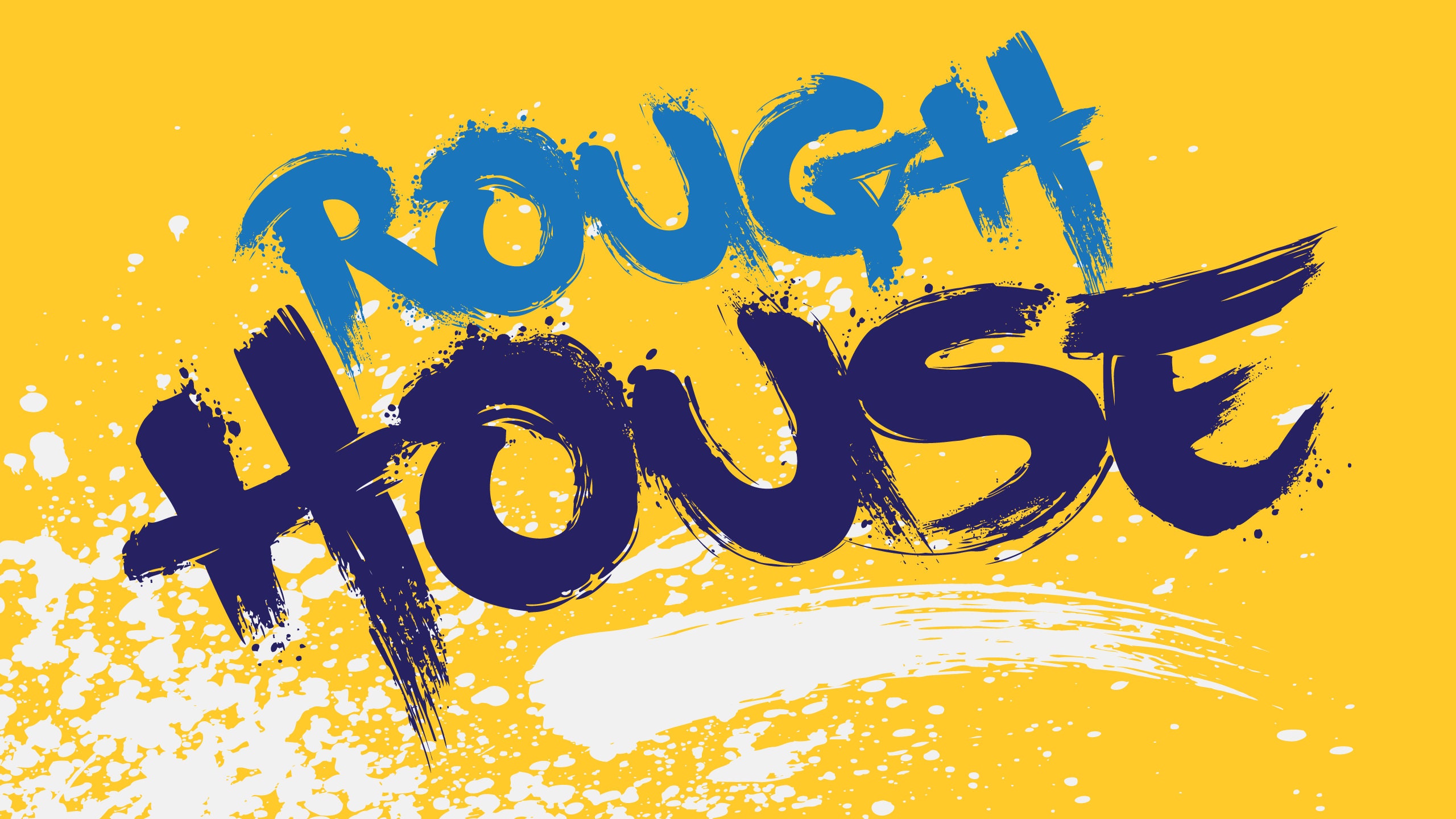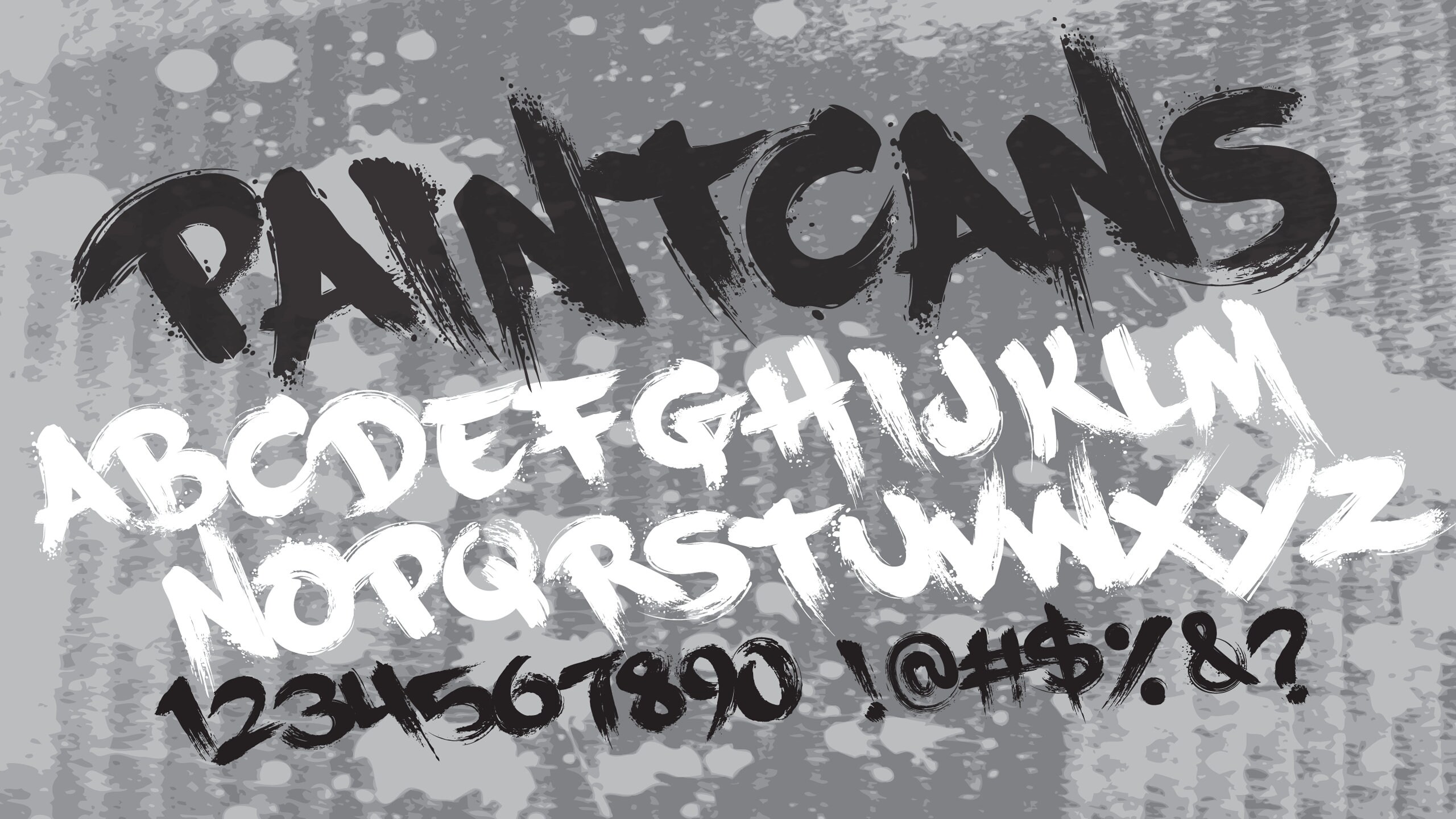
Characterized by its dynamic, dripping strokes and raw, unpolished edges, this font. Free download paintcans font file in ttf font type, (paintcans.ttf) from script category with the graffiti style. Get exclusive, upgraded & expanded versions of the best, free, graffiti style typefaces. Get the latest version of the paintcans graffiti font family direct from the author. Fonts2u offers a large collection of free fonts. Royalty free, commercial licensing available. Download free fonts for windows and macintosh. Download and install the paintcans font for free from ffonts.net. Download the latest version of the paintcans free graffiti font family here. File script name paintcans.ttf download free for personal use.
Paint Cans Font Free Download free fonts for windows and macintosh. Paintcans regular font by dafontfree. Free download paintcans font file in ttf font type, (paintcans.ttf) from script category with the graffiti style. Get exclusive, upgraded & expanded versions of the best, free, graffiti style typefaces. Characterized by its dynamic, dripping strokes and raw, unpolished edges, this font. Download and install the paintcans font for free from ffonts.net. ️ this font has been downloaded 8,000+ times. Discover the perfect font for your next project with our collection of ‘free paint fonts’. File script name paintcans.ttf download free for personal use. Fonts2u offers a large collection of free fonts. Download the latest version of the paintcans free graffiti font family here. Download free fonts for windows and macintosh. Get the latest version of the paintcans graffiti font family direct from the author. Royalty free, commercial licensing available.